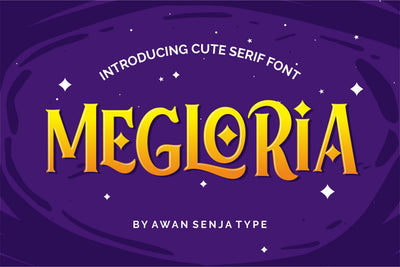
Megloria - Cute Serif Font
Introducing our newest cute serif typeface, MEGLORIA, a cute typeface font. This font perfectly made to be in poster funny, and the other various formal forms such as invitations, labels, logos, magazines, books, packaging, fashion, make up, stationery, novels, labels or any type of advertising purpose.